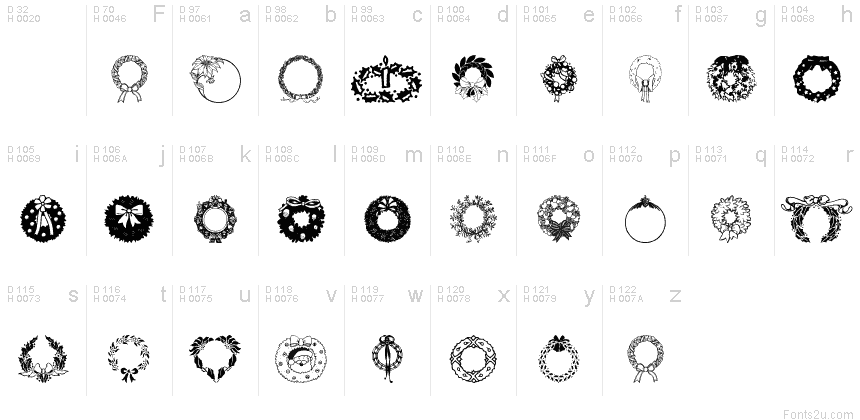
ChristmasWreath
ChristmasWreath font by Lime 2000 is a free Christmas dingbat typeface filled with richly drawn wreath icons. From bold, inky silhouettes to finely detailed holly rings tied with ribbons, each glyph feels like a ready‑made illustration you can drop straight into your layout. The mix of solid and outlined styles gives you options for both strong black-and-white graphics and lighter, airier accents without hunting through stock art.
Using ChristmasWreath, you can quickly decorate greeting cards, gift tags, party invitations, social media posts, newsletters, and even DIY wrapping paper. The icons print cleanly at larger sizes, so don’t be afraid to scale them up as focal artwork. This free font pairs especially well with a simple geometric sans serif, letting the intricate wreaths carry the holiday warmth while the text stays crisp and readable.